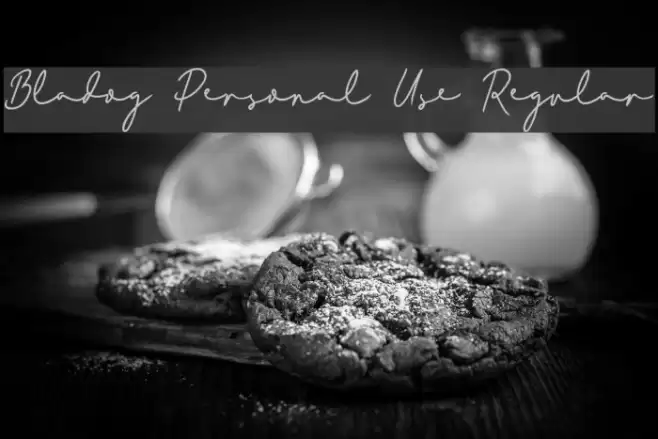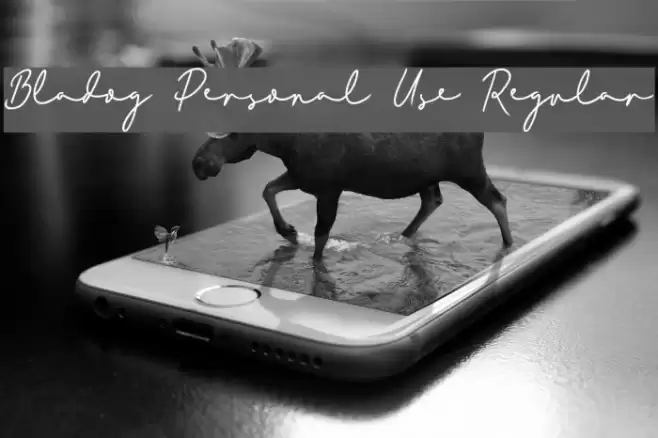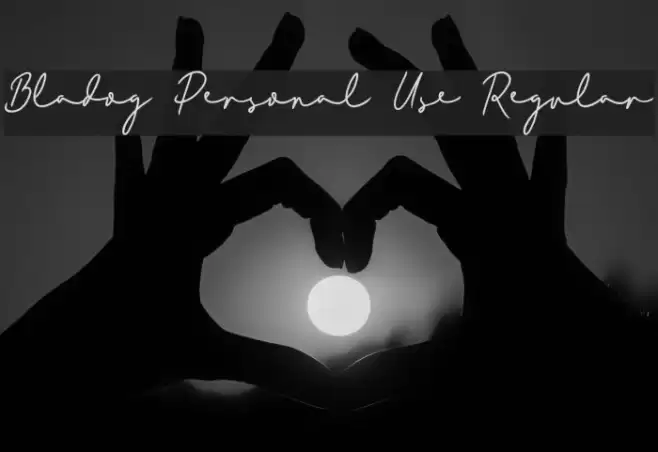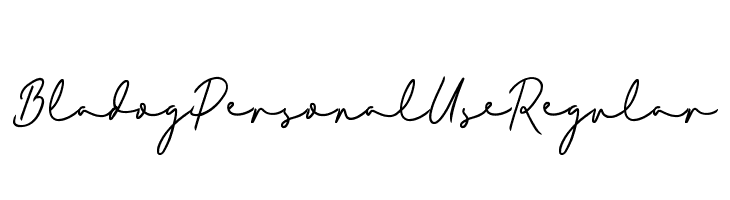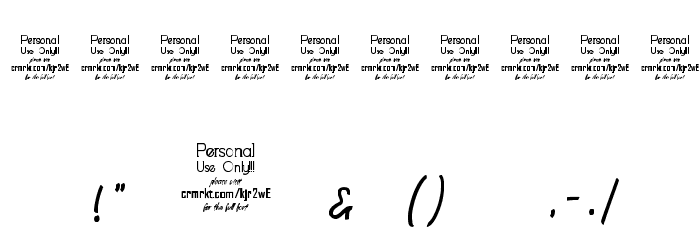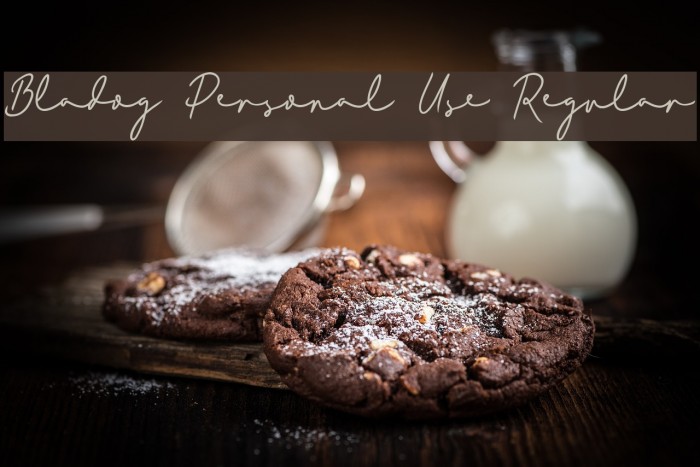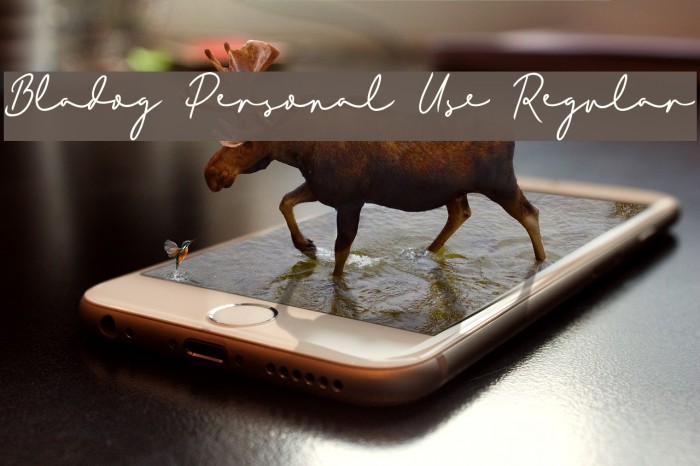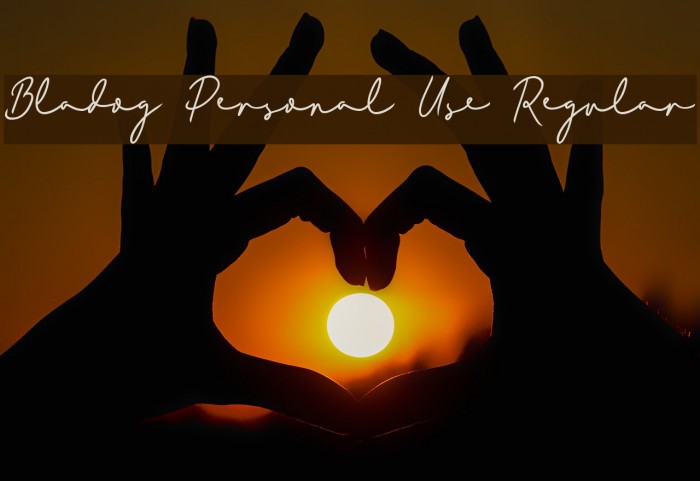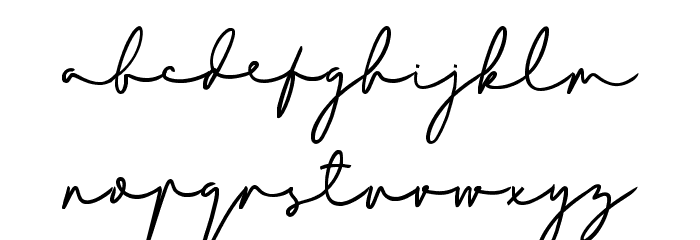
Bladog Personal Use Regular Font
Bladog Personal Use Regular Description
This elegant script font features fluid, cursive strokes that mimic natural handwriting. The uppercase letters are bold and sweeping, with a graceful flow that adds a touch of sophistication. The lowercase letters maintain a consistent style, with smooth curves and a slight slant that enhances readability. The font includes a full set of numerals and a selection of special characters, making it versatile for various design needs. Its overall appearance is both stylish and approachable, suitable for projects that require a personal touch.
A fluid, cursive script font with elegant strokes and a natural handwriting style from Uncategorized fonts.
- Font: Bladog Personal Use Regular
- Proposed Projects: Ideal for wedding invitations, greeting cards, personal branding, and elegant logo designs.
- Overall Style: Elegant, Handwritten
- Use Case: Logos, Invitations, Personal Branding